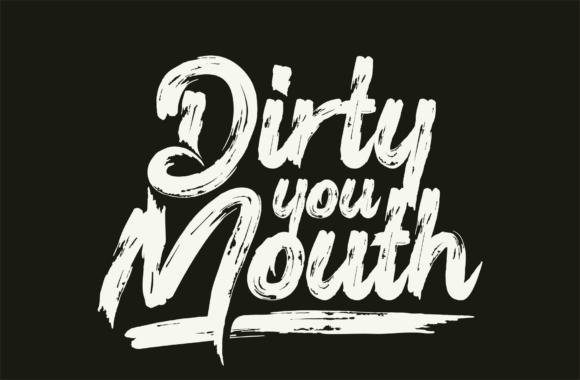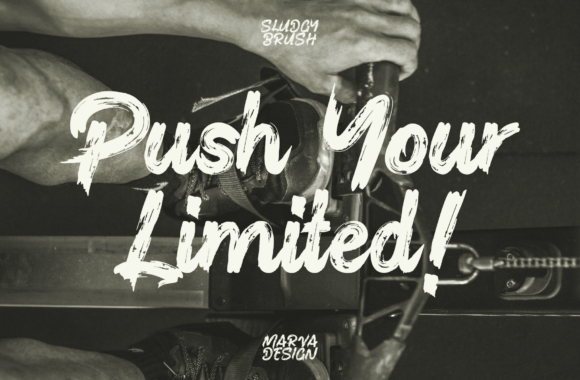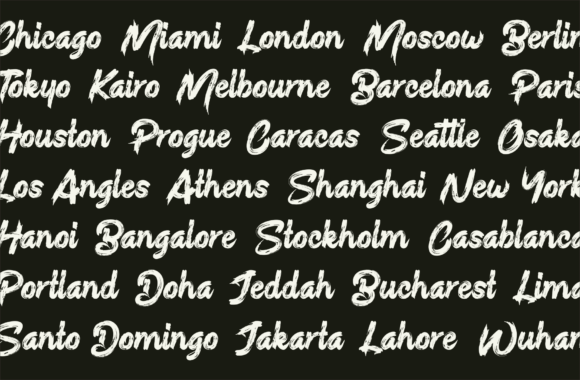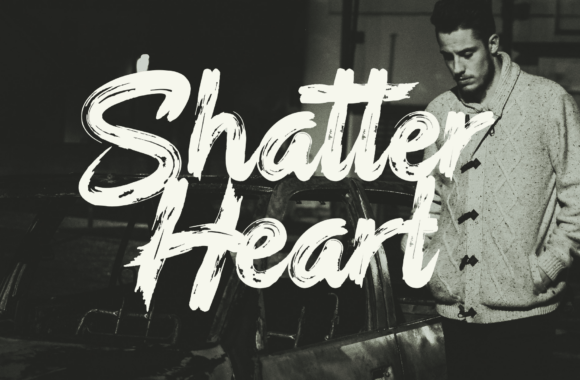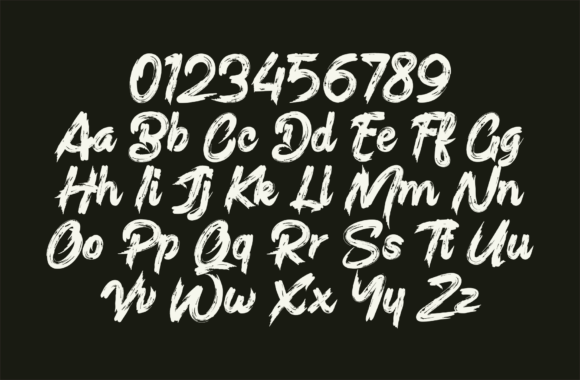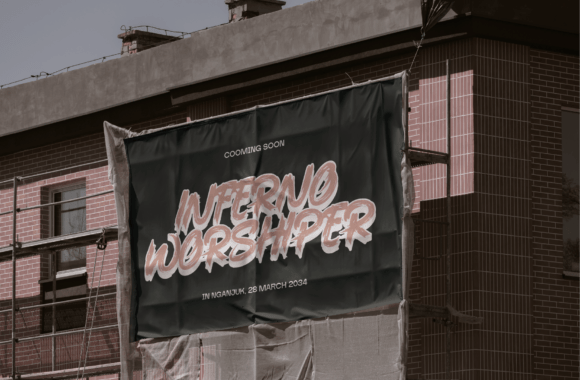
Introduction to Sludgy Brush Font
As a designer, you’ve likely found yourself in the middle of a creative project, staring at a blank canvas or a dull text block, searching for the perfect font to bring your vision to life. The right font can elevate your design from bland to grand, and when you stumble upon the perfect one, it’s like a breath of fresh air. That’s exactly what happened when I discovered the Sludgy Brush Font – a game-changing, high-quality design resource that’s taken my designs to the next level.
With its bold, expressive brush typeface and rough, textured look, the Sludgy Brush Font is a free download that’s perfect for designers seeking a unique, handmade feel. The font’s organic and dynamic nature makes it ideal for bold branding, posters, and street-style designs, while its transparent background and versatile style alternatives make it a valuable asset for any creative project.
Key Features of Sludgy Brush Font
- High-quality, hand-drawn design ideal for creative projects, posters, and advertisements.
- Comes with a transparent background, making it easy to integrate into various design backgrounds.
- Unique, sludgy brush style font perfect for adding a creative touch to your design resource.
- Perfect for designers looking for a unique, high-quality design resource for their creative project.
Honest Review: Sludgy Brush Font
I recently stumbled upon the Sludgy Brush Font, and I must say, it’s been a game-changer for my design projects. As a designer, I’m always on the lookout for high-quality design resources that can help me take my creative projects to the next level.
Here are some things that work well about the Sludgy Brush Font:
- ✨ Unique and creative font style that adds a personal touch to any design project.
- ✨ High-quality font that’s perfect for both digital and print designs.
- ⚠️ Limited character set, which may not be suitable for longer texts.
- ⚠️ Transparent background can be a bit tricky to work with, especially for designers who are not familiar with advanced design tools.
Overall, I’m really impressed with the Sludgy Brush Font. It’s a great design resource that’s perfect for creative projects that require a unique and eye-catching font. If you’re looking for a high-quality font that’s easy to use, I would definitely recommend giving it a try.
Tips for Getting the Most Out of Sludgy Brush Font
Use the Sludgy Brush Font on a transparent background to create a unique and eye-catching design. Experiment with different font sizes, colors, and styles to get the most out of this creative design resource.
The Sludgy Brush Font is perfect for creative projects, such as: graphic design, digital art, typography, and branding. It’s also great for adding a personal touch to presentations, reports, and other documents.